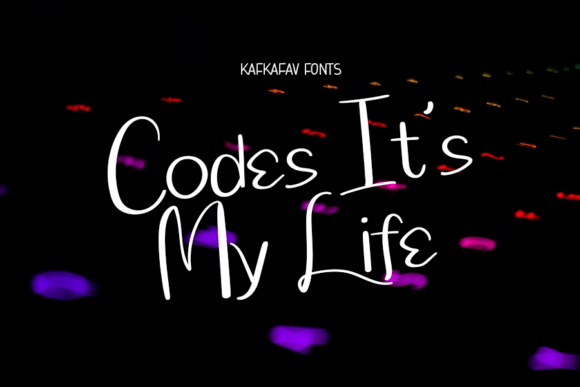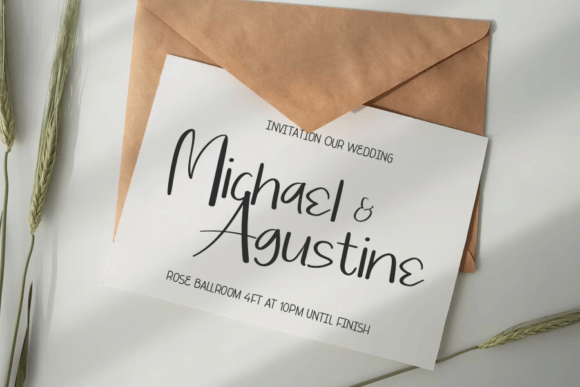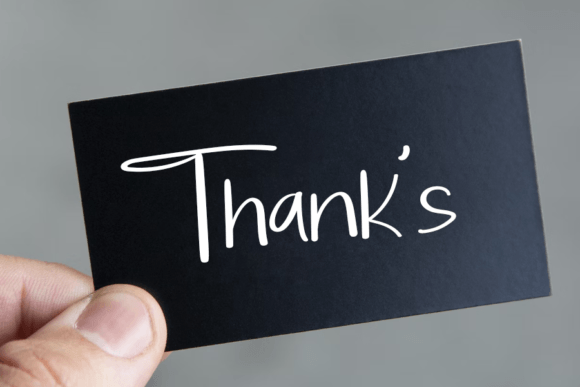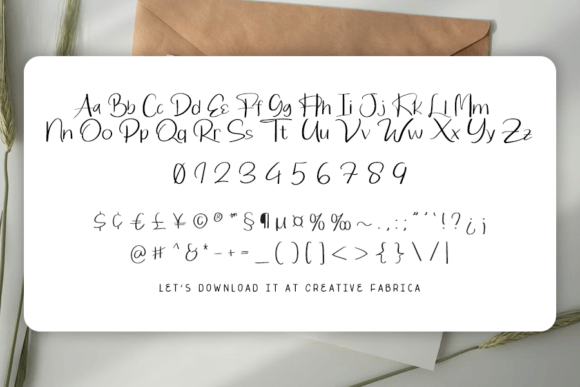
Kafkafav Font
**KafkaFav Font: Charming Elegance for Romantic Designs**
Introducing “KafkaFav,” a font that encapsulates both charm and elegance, designed to add a touch of sophistication to your projects. This stunning font is ideal for a variety of applications, including wedding invitations, thank-you cards, quotes, greeting cards, logos, business cards, and any design that craves a romantic and handwritten touch.
**Charming and Elegant Aesthetics:**
KafkaFav brings a delightful combination of charm and elegance to your designs. The handwritten strokes are carefully crafted to create a font that exudes warmth and sophistication. Whether it’s a wedding invitation or a business logo, KafkaFav adds a layer of beauty that captivates.
**Perfect for Romantic Designs:**
Tailor-made for romantic designs, KafkaFav is perfect for expressing love and affection. Its romantic handwritten touch is ideal for wedding-related materials, love notes, and any project where you want to convey a sense of charm and intimacy. KafkaFav transforms your designs into expressions of heartfelt emotion.
**Stunning Across Various Designs:**
KafkaFav looks stunning across a variety of design platforms, making it versatile for different design needs. Whether it’s printed on wedding invitations or displayed digitally in a logo, KafkaFav adapts seamlessly, adding a touch of romantic elegance to your visual expressions.
**Ideal for Expressive Designs:**
Choose KafkaFav for expressive designs that evoke emotions. The font is not just a collection of letters; it’s a vessel for conveying gratitude, love, and appreciation. Let KafkaFav be the language that speaks volumes in your designs.
KafkaFav is more than just a font; it’s a romantic companion for your creative journey. Let it be the script that whispers love in every stroke, creating designs that not only look stunning but also convey heartfelt emotions. With KafkaFav, your projects become an artful expression of love and elegance.